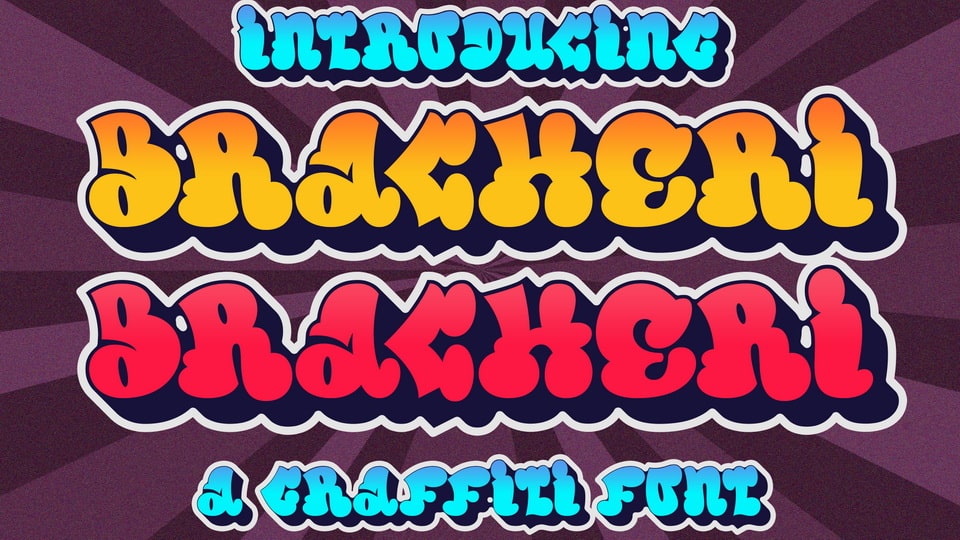
Download Bracheri font, a cool, graffiti-style display typeface. Bracheri is suitable for designs such as t-shirts, sportswear, logos, advertisements, clothing, and more.